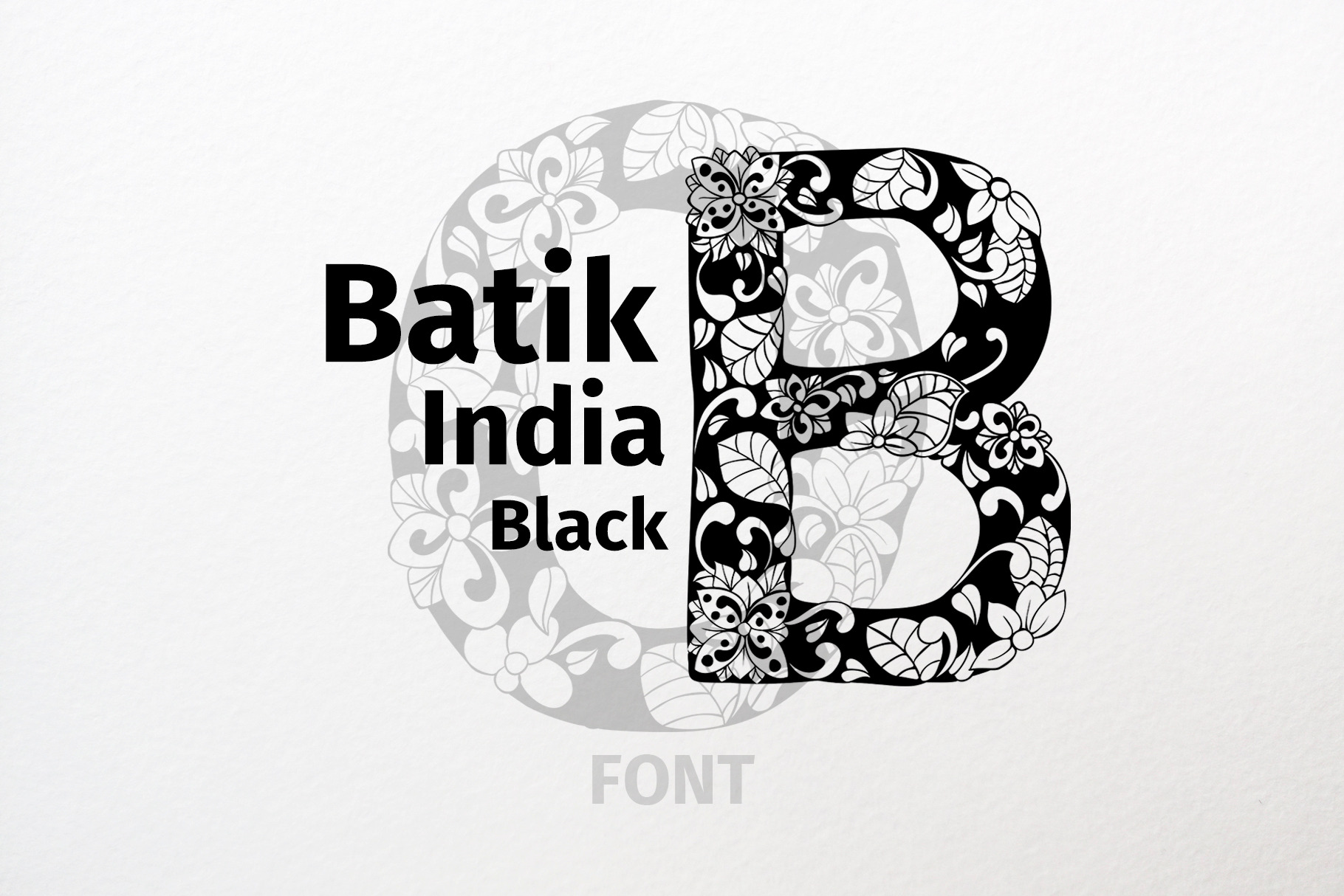
Batik India Black Font
Welcome to my shop! I'm happy to introduce my OTF font crafted with hand-drawn line art floral ornaments and vectorized into letters which become a font!
The letters from this font are drawn by hand then carefully digitized in Adobe Illustrator